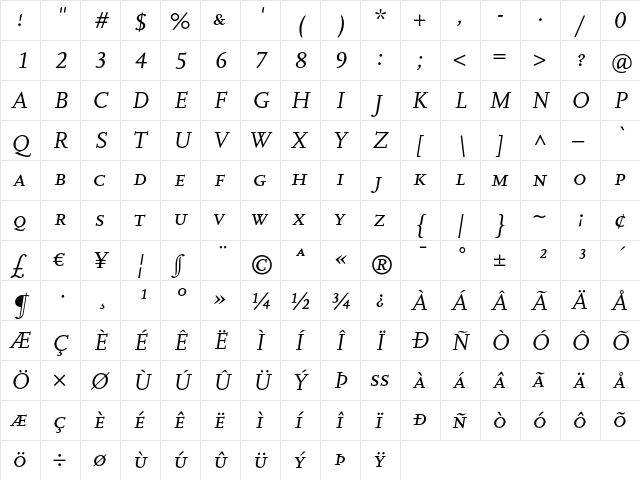
Scala Caps Italic
Design Context for Scala Caps Typeface
Scala Caps takes a measured approach to typography — its balanced proportions and neutral character make it a reliable workhorse for both digital and print work. The dynamic lean of this cut emphasises speed and emphasis in any layout.
Pro Tip: Try Scala Caps for annotation and caption copy alongside an upright companion — the contrast in angle creates a dynamic but ordered typographic system.